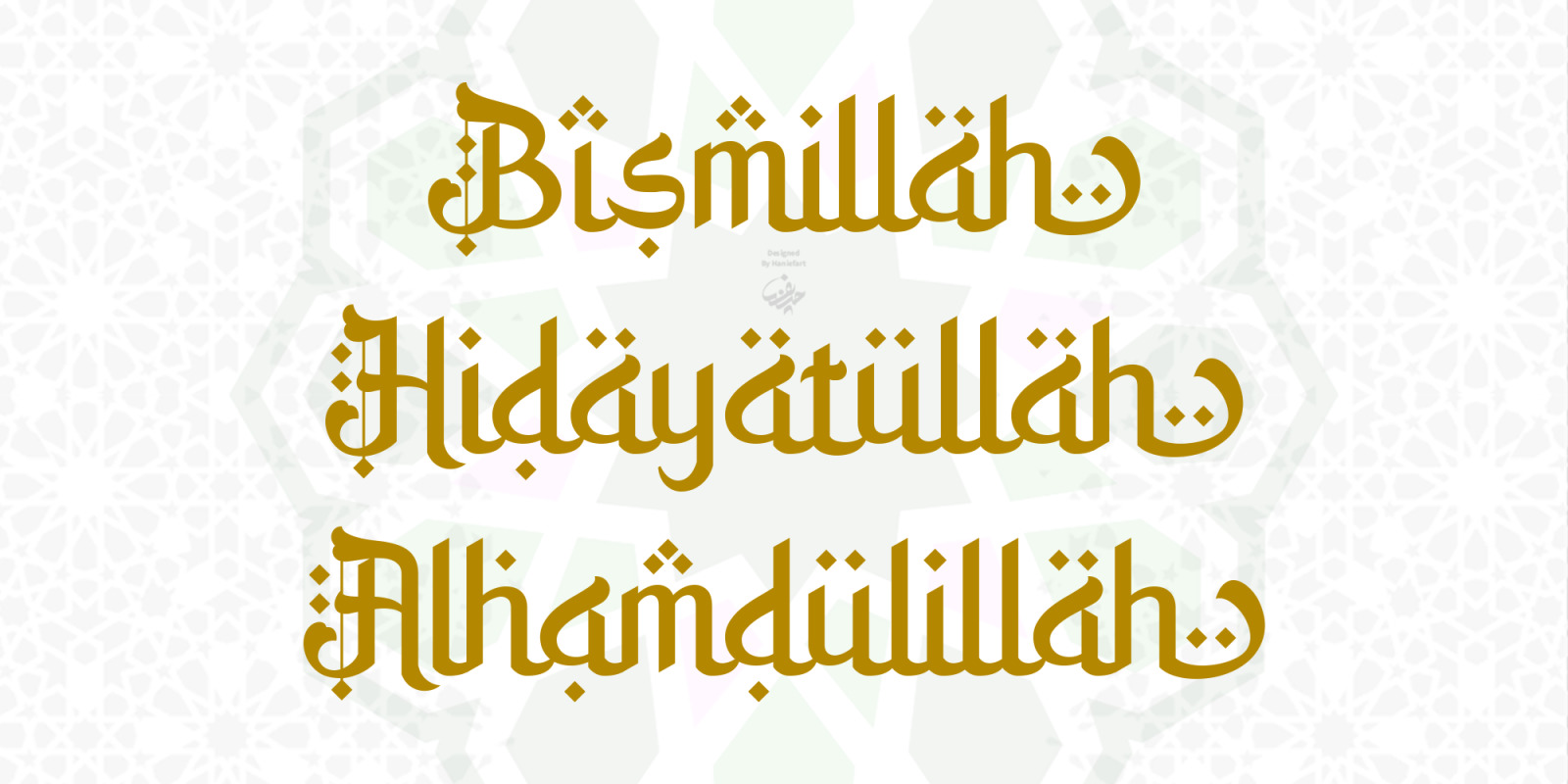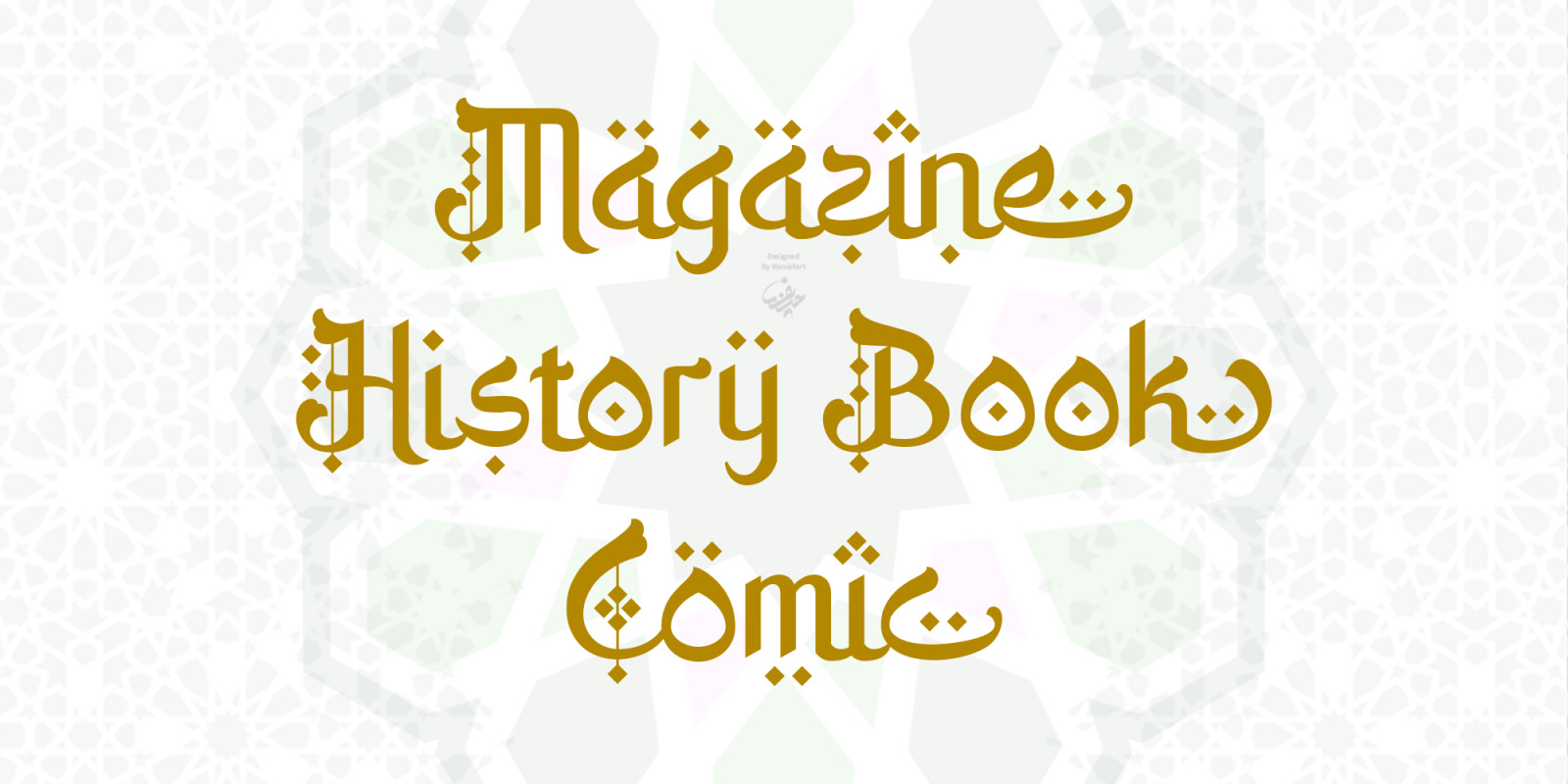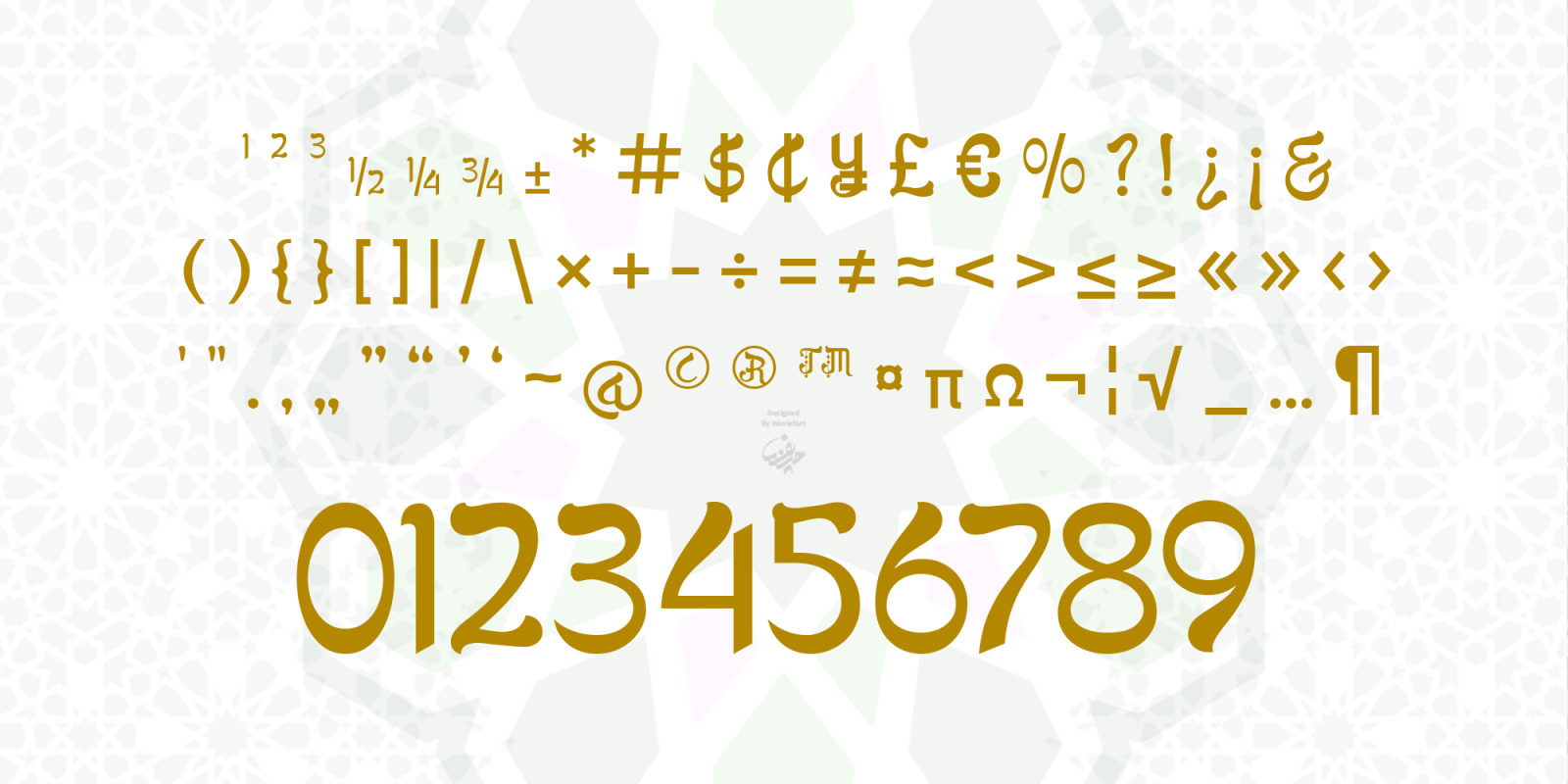
Burak Font
Experience the enchantment of Burak, a meticulously handcrafted signature typeface that seamlessly fuses contemporary flair with traditional Arabic lettering. Precision-crafted for versatility, the sophisticated charm of Burak lends itself flawlessly to an array of design endeavours. Whether it's gracing invitation cards or business cards, embellishing magazine pages with its elegance, adding an air of sophistication to comic books, making a bold statement on t-shirts, or turning heads on banners, Burak holds the ability to breathe unique allure into your projects. Enrich your creations with the distinctive charisma of Burak.